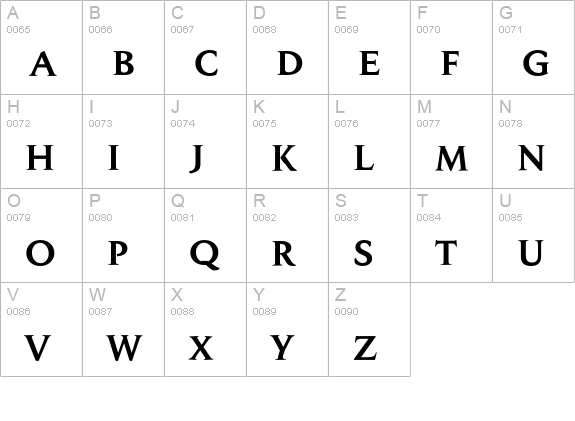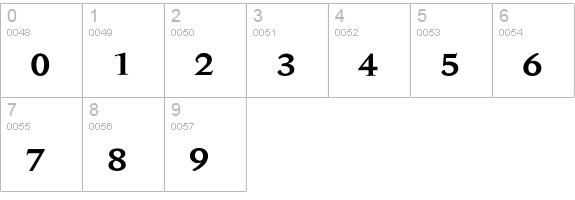
Steinbeck Gras Font Details
Steinbeck Gras is a beautifully crafted font that exudes elegance and sophistication. Its sleek and modern design makes it the perfect choice for a wide range of projects, from branding to corporate materials. The clean lines and stylish curves of Steinbeck Gras lend a sense of professionalism and refinement to any text it adorns. What sets Steinbeck Gras apart is not only its aesthetic appeal, but also its versatility. Whether used for headlines, body text, or even logos, this font maintains its clarity and readability across various sizes and formats. Its timeless charm makes it a favorite among designers and creatives looking to make a lasting impression. One of the best things about Steinbeck Gras is that it is completely free to download at FontsMarket.com. This means that you can easily access this high-quality font without breaking the bank. So why wait? Elevate your designs with Steinbeck Gras today and let your creativity shine!